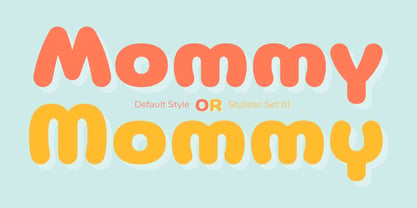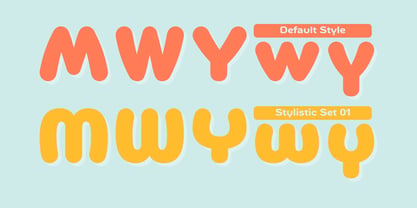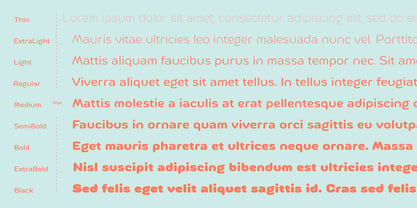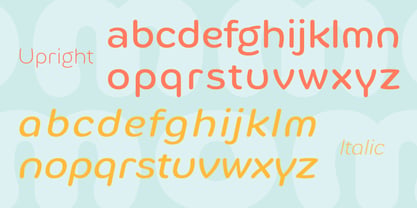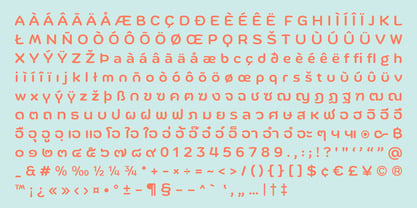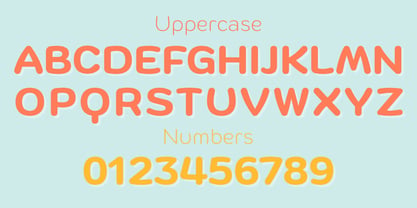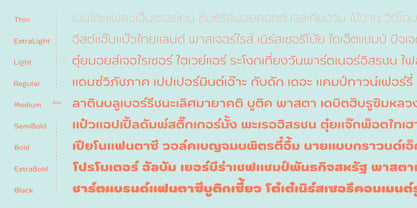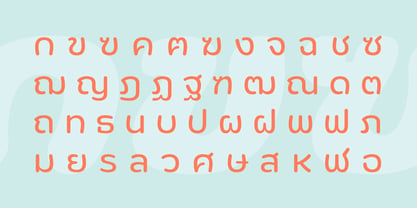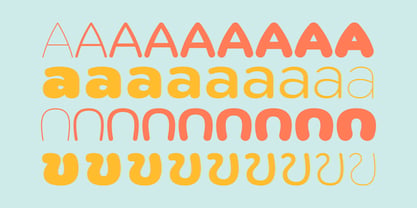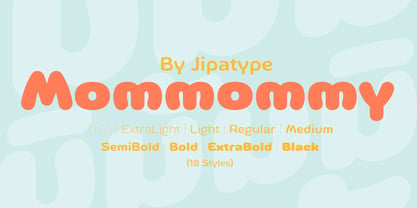
Mommommy
por Jipatype
A família de fontes Mommommy foi desenhada por Anupap Jaichumnan e publicada pela Jipatype. Mommommy contém 18 estilos e opções de pacote familiar. Saiba mais sobre esta família
Mommommy is a delightfully warm, bubbly, and friendly sans-serif font family designed to bring a soft, comforting touch to your creative projects. This versatile typeface excels in emotional resonance, evoking a cozy and welcoming vibe through its expressive typography layout. It offers incredible typographic flexibility with its unique OpenType features, showcasing a playful stylistic shift between its Default Style and Stylistic Set 01 for prominent characters like M, W, and Y. Complete with a beautifully rounded set of uppercase letters, numbers, and graceful upright and italic lowercase options, Mommommy seamlessly integrates a modern, loopless Thai script. Boasting an impressive lineup of 18 styles across 9 distinct weights ranging from a delicate Thin to a heavy, high-impact Black. It is the ultimate choice for children's books, food packaging, editorial layouts, and vibrant social media branding.
Designers: Anupap Jaichumnan
Fundição: Jipatype